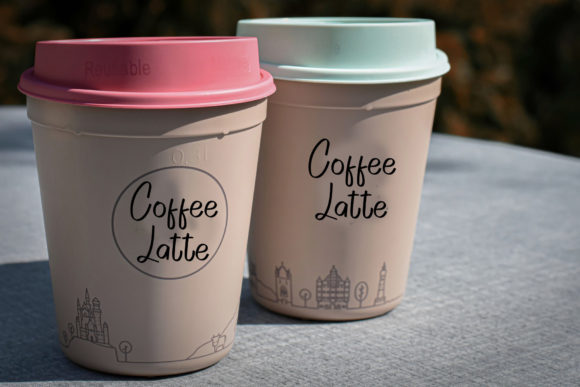
Introduction to Jellita Font
As a designer, there’s nothing quite like the thrill of discovering a new font that perfectly captures the essence of your creative vision. For me, that moment came when I stumbled upon the Jellita Font – a unique and elegant typeface that instantly elevates any design project.
With its beautiful, handwritten touch, the Jellita Font is a game-changer for designers looking to add a high-quality, personal touch to their work. Whether you’re creating wedding invitations, greeting cards, or logos, this versatile font is sure to make your design stand out from the crowd. And the best part? It’s available as a free download, making it an invaluable resource for any creative project.
As a valuable addition to any design arsenal, the Jellita Font offers a transparent background, allowing you to seamlessly integrate it into your designs. Its beauty lies in its simplicity, making it the perfect choice for designers seeking a high-quality, elegant font that adds a touch of sophistication to any project.
Key Features of Jellita Font
- High-quality, professional design for creative projects, including logos, branding, and advertising materials.
- Features a transparent background, allowing for easy integration with any design or background image.
- Includes a range of styles and weights, providing versatility and flexibility for designers to experiment with different looks and feels.
- Perfect for use in a variety of creative projects, from digital art and graphics to print materials and signage.
Honest Review: Jellita Font
As a designer, I’m always on the lookout for high-quality design resources to elevate my creative projects. Recently, I stumbled upon the Jellita Font, and I’m excited to share my honest review.
First impressions are everything, and the Jellita Font certainly delivers. Its transparent background makes it perfect for use on a variety of backgrounds, from light to dark. Plus, it’s a free download, making it an excellent addition to any design resource collection.
- What works well: ✨ The Jellita Font is incredibly versatile and can be used for a wide range of creative projects, from logos to typography.
- What works well: ✨ The font is well-designed, with a unique and modern aesthetic that’s sure to grab attention.
However, there are a few limitations to consider. ⚠️ The font may not be suitable for all projects, particularly those requiring a more formal or traditional tone. Additionally, the free version may not include all the characters and languages you need.
Overall, I’m impressed with the Jellita Font. While it may not be perfect, its strengths far outweigh its weaknesses. As a free design resource, it’s an excellent choice for designers on a budget or those looking to add some flair to their creative projects.